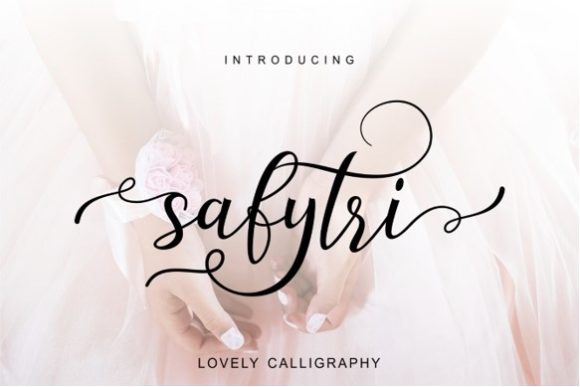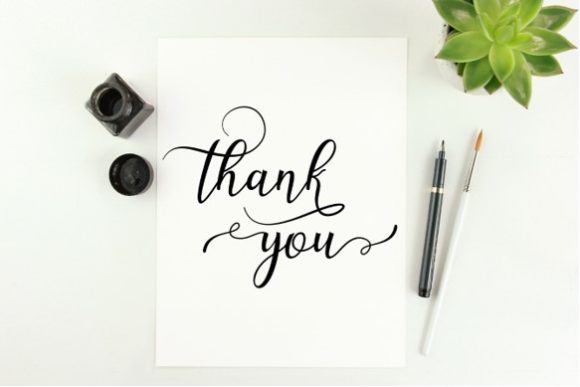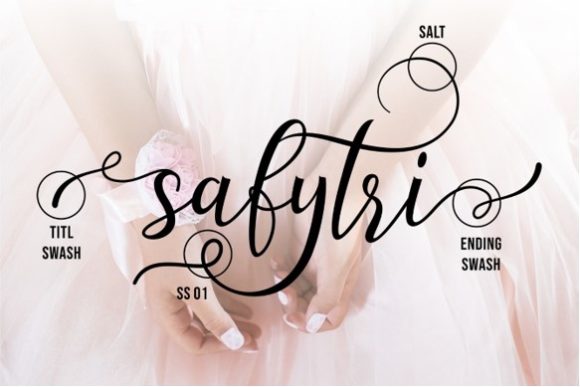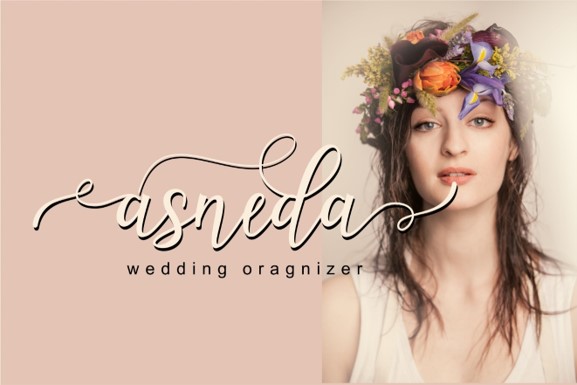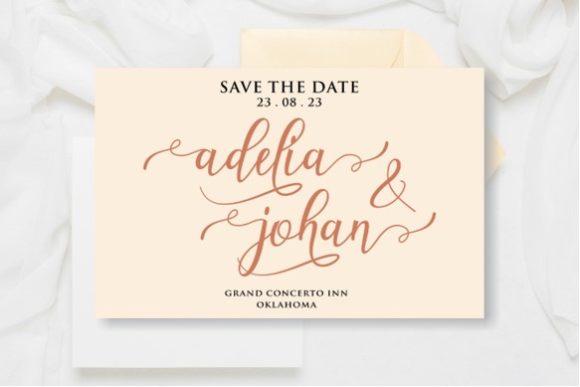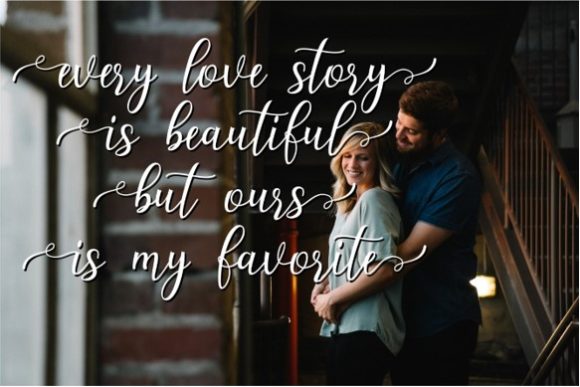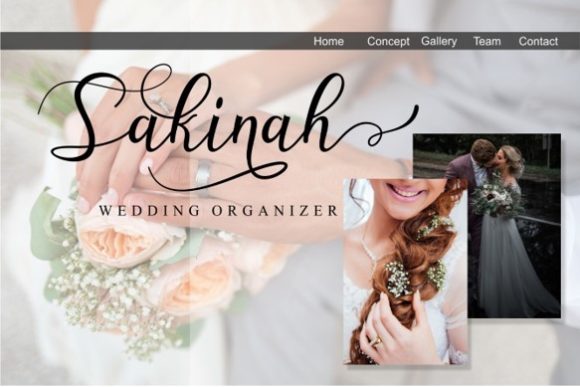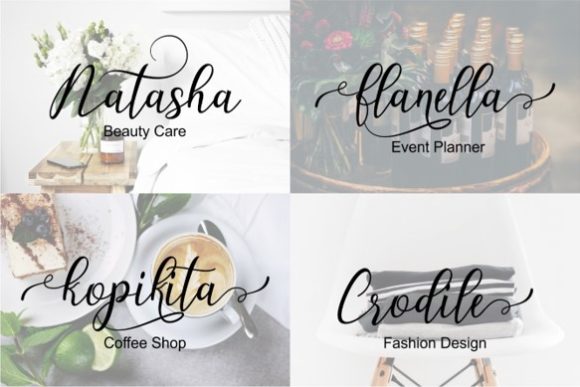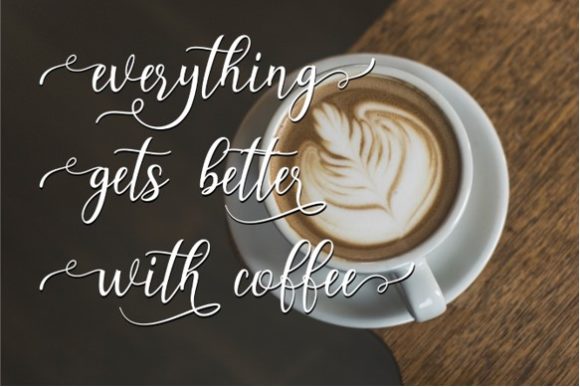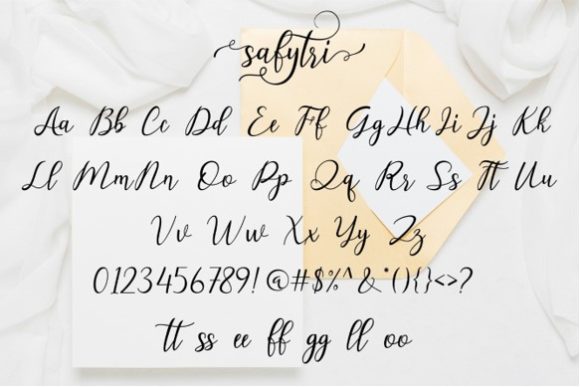
HomeScript FontsSafytri Font Script Fonts Safytri Font FacebookXPinterestWhatsApp Safytri Font Poster 2 Safytri Font Poster 3 Safytri Font Poster 4 Safytri Font Poster 5 Safytri Font Poster 6 Safytri Font Poster 7 Safytri Font Poster 8 Safytri Font Poster 9 Safytri Font Poster 10 About Safytri Font Safytri is a highly original script font with amazing swashes. It will turn any design idea into a true standout! DOWNLOAD NOW People also explored Santa House Font Rosetta Font Angela Hope Font Denita Font Singaporean Font Rise Above Font Simple Mandala Font Northen Font Babang Font 326 0 TagsSafytri Font Previous articleChuttime FontNext articleBroken Space Font LEAVE A REPLY Cancel reply Comment: Please enter your comment! Name:* Please enter your name here Email:* You have entered an incorrect email address! Please enter your email address here Website: Save my name, email, and website in this browser for the next time I comment. Personal Use Free Butter Belly Personal Use Free Read more about this font Knucklehead Personal Use Free Read more about this font Krait Personal Use Free Read more about this font Mariyam Personal Use Free Read more about this font BLOG 5 Fonts That Will Dominate Design Trends in 2026 5 Fonts for 2026 That Will Dominate Design Trends Typography plays a critical role in visual communication, and as we look ahead to 2026, it’s... Fonts That Capture the Spirit of New York City Where to Buy American Fonts Online in 2024 Best Fonts for T-Shirt Design – Top 2025 Picks